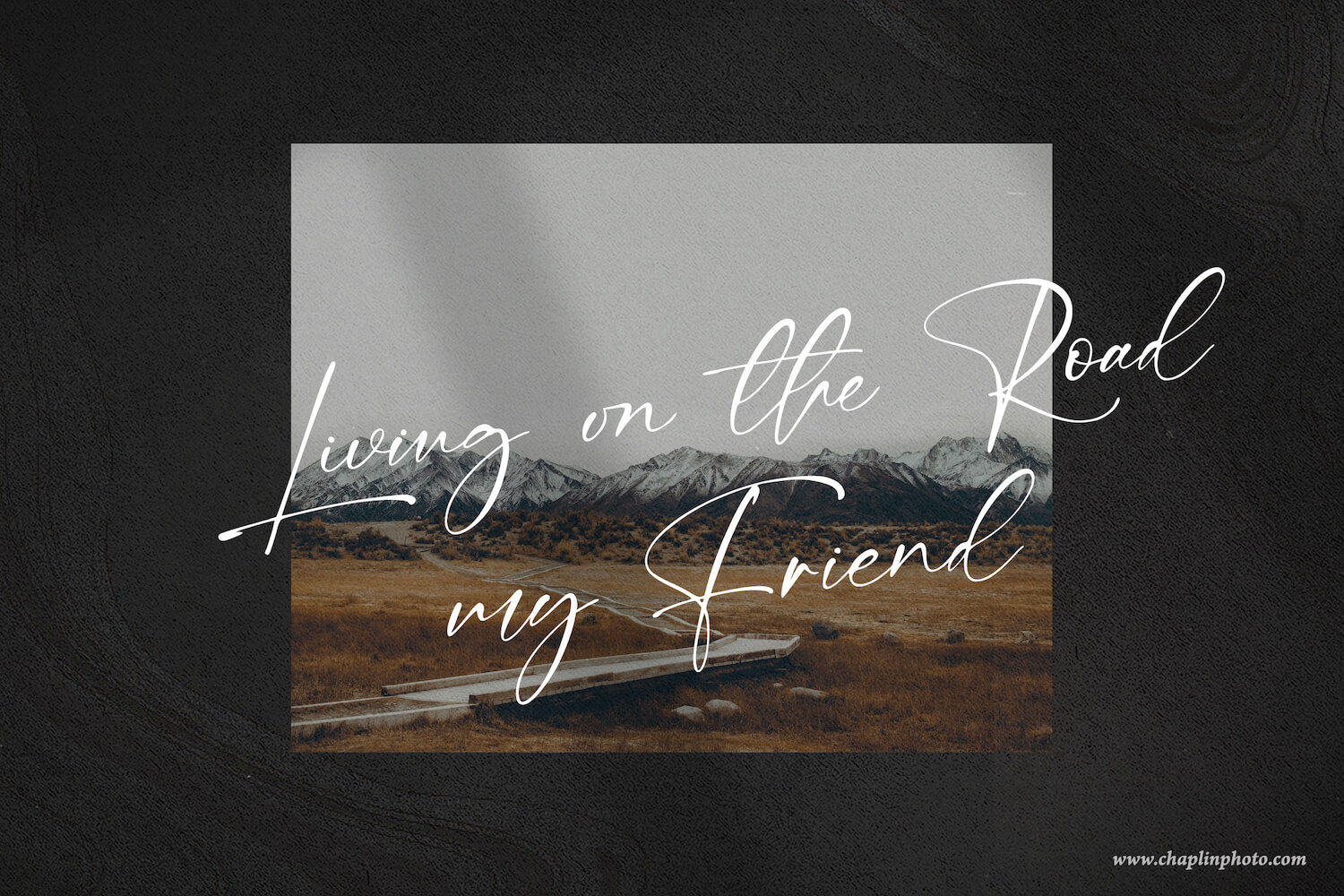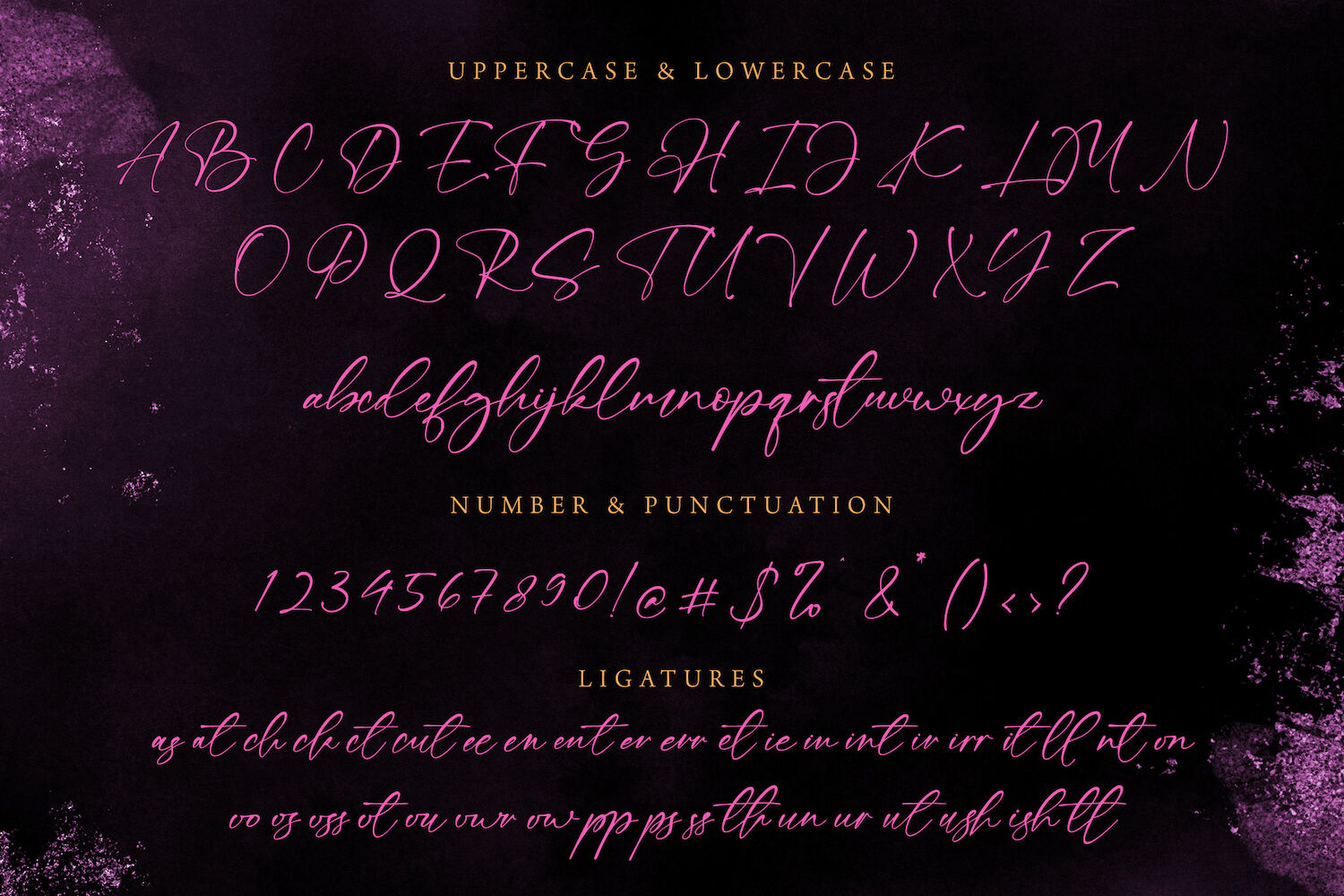
Black Ming Calligraphy Font is a luxurious and expressive script typeface that combines modern elegance with artistic flair. Its long, fluid strokes and stylish curves bring a sense of drama and sophistication to every letter, making it perfect for designs that aim to leave a lasting impression. With high contrast between thick and thin lines, Black Ming flows with the rhythm of handcrafted calligraphy while maintaining the polish needed for upscale branding.
This font is a standout choice for perfume labels, jewelry packaging, fashion campaigns, and high-end product branding. It thrives in large headline applications, wedding invitations, and boutique logos where a signature look is key. The elegant ligatures and wide stylistic range add refinement and personality, while its multilingual support ensures flexibility for global use.
Whether you're launching a fragrance collection or creating editorial visuals with allure, Black Ming Calligraphy Font delivers a rich, feminine touch wrapped in graceful sophistication.